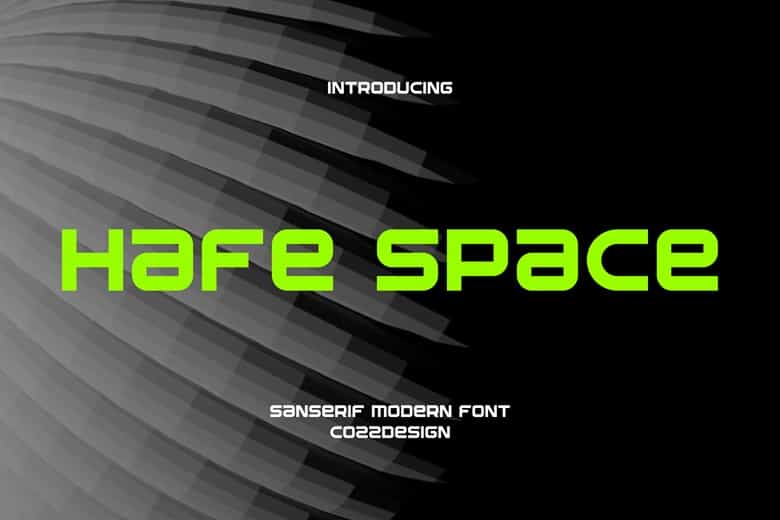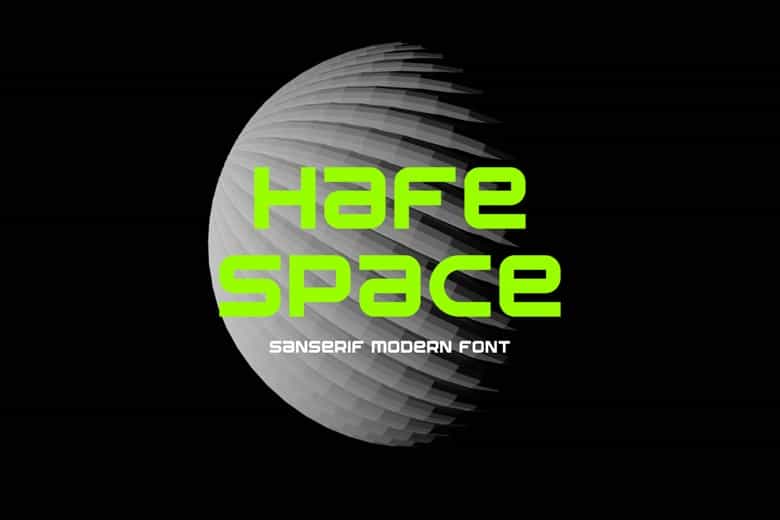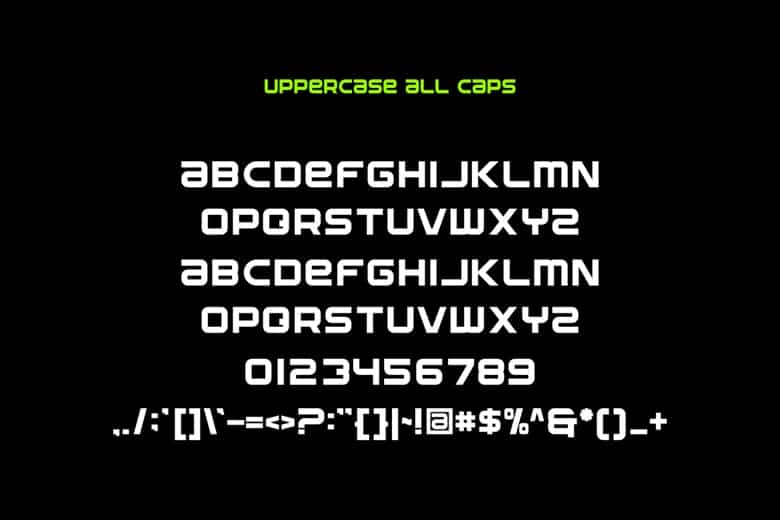
Hafespace is a new contemporary and neat sans serif font with strong and attractive characters perfect for any branding tasks like logos, sports and more. It is observable across the various contexts.